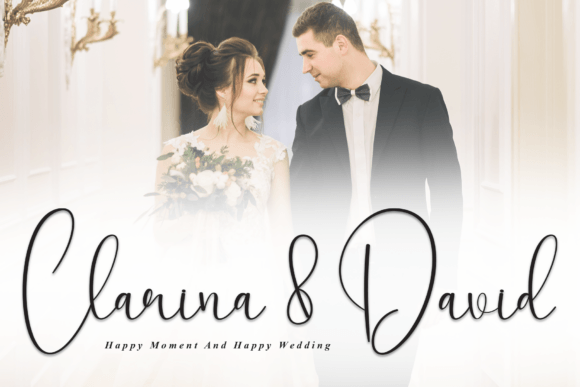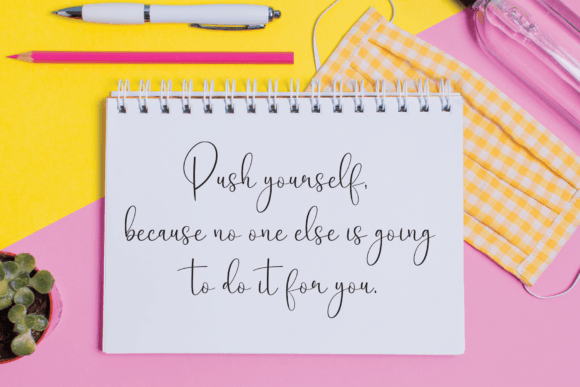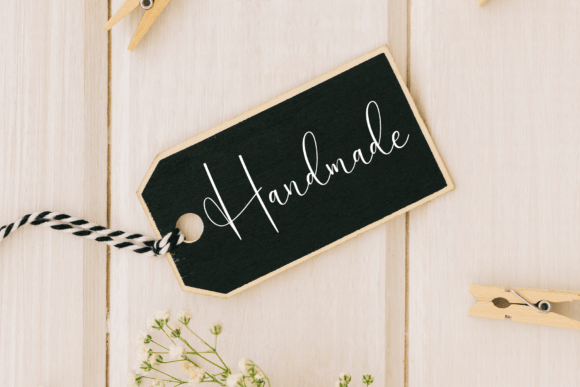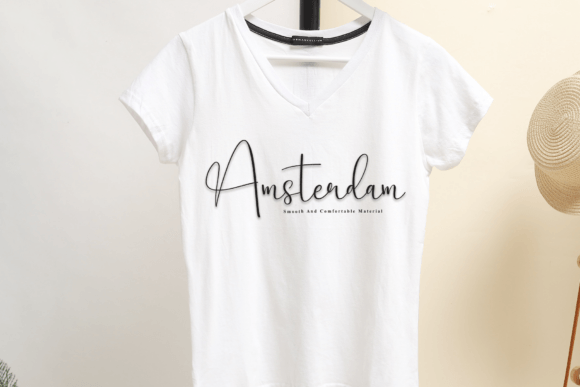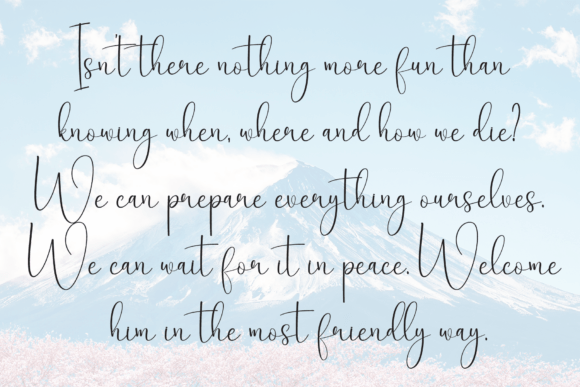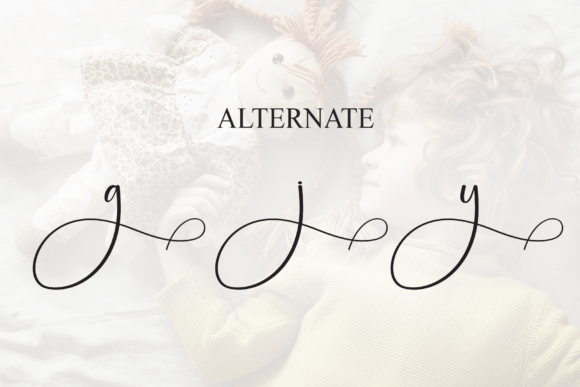
The Perfect Script for Your Masterpiece
Do you remember the moment when a single font changed the entire look of your design project? For many of us, that moment is a defining experience that sets our creative juices flowing. Whether it’s a wedding invitation, a heartfelt thank you card, or a bold business logo, the right font can elevate your design from good to great. For those seeking a handwritten touch that’s both elegant and stylish, the Babydol Font is an ideal choice.
This beautiful script font is perfect for adding a touch of sophistication to your designs. With its versatility and charm, Babydol Font is a valuable asset for designers looking to create stunning visuals that leave a lasting impression. Its wide range of applications makes it a must-have for any creative professional looking to add a personal touch to their work.
Babydol Font Key Features
- Unique Characteristics: Babydol font features a unique, hand-drawn design with soft, rounded edges and a subtle texture, giving it a warm and inviting feel.
- Script and Language Support: The font includes a wide range of languages, including Latin, Greek, and Cyrillic scripts, making it suitable for international design projects.
- Style and Variations: Babydol font comes in several styles, including regular, bold, italic, and bold italic, offering flexibility and versatility in design applications.
Babydol Font Review
As a designer, I was excited to dive into the Babydol Font and see what it had to offer. Overall, I’d say it’s a solid addition to any font collection, but it’s not without its quirks. ✨
- Soft, rounded edges that give the font a friendly, approachable feel.
- Good legibility, even at smaller font sizes.
- A wide range of weights and styles to choose from, making it versatile for different design projects.
- The font’s modern aesthetic makes it a great choice for branding and advertising materials.
- ⚠️ The font can feel a bit too playful or childish for certain design applications, particularly those requiring a more serious tone.
- ⚠️ Some of the letterforms can be a bit too rounded, making it difficult to read at very small sizes.
- ⚠️ The font’s modern feel can also make it feel a bit dated or overused in certain contexts.
The Babydol Font is a great choice for designers looking for a friendly, approachable font that’s suitable for a wide range of projects. While it may not be the best fit for every design application, it’s definitely worth adding to your font collection. With a bit of creative restraint, you can use this font to create some truly engaging and effective designs.
Tips for Getting the Most Out of Babydol Font
1. Use Babydol Font for titles and headings to add a touch of elegance and sophistication.
2. Pair Babydol Font with other fonts to create a unique and eye-catching design.
3. Experiment with different font sizes and colors to achieve the desired effect.
Common Use Cases for Babydol Font
2. Baby shower invitations and decorations.
3. Luxury branding and marketing materials.
Alternatives to Babydol Font
Great Vibes Font is a modern, elegant script font perfect for creating eye-catching headings and titles. It’s ideal for designs that require a touch of sophistication and luxury. Compared to Babydol Font, Great Vibes Font has a more refined and polished look, making it suitable for high-end brands and fashion designs.